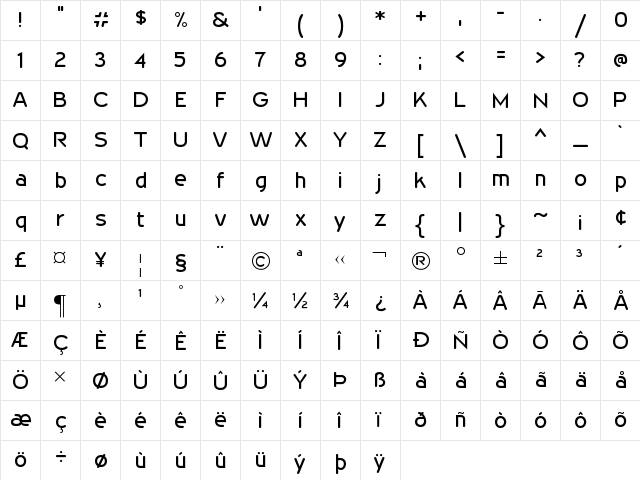
Wevli Medium
Design Context for Wevli Typeface
Wevli is a composed and adaptable typeface that performs quietly and consistently across a wide range of design contexts.